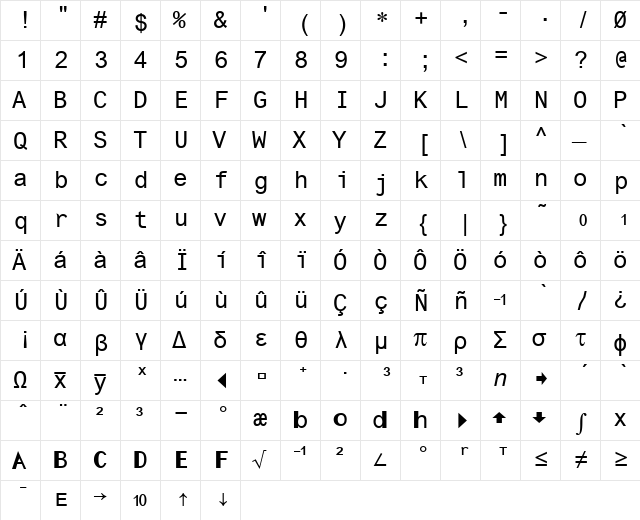
Ti86pc Regular
Design Context for Ti86pc Typeface
Ti86pc offers clean, dependable letterforms without strong stylistic allegiance, making it a practical choice for designers who need flexibility.